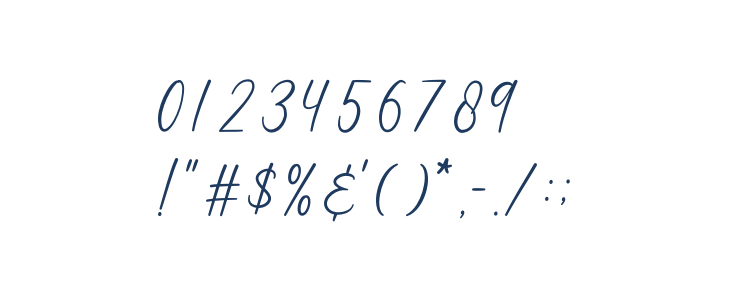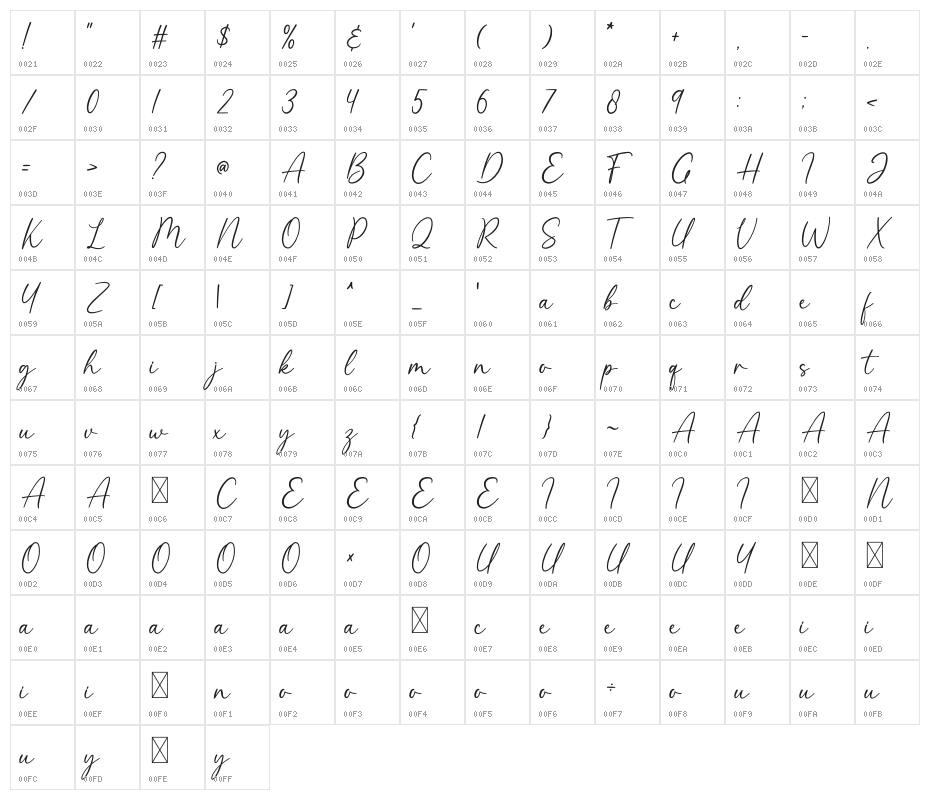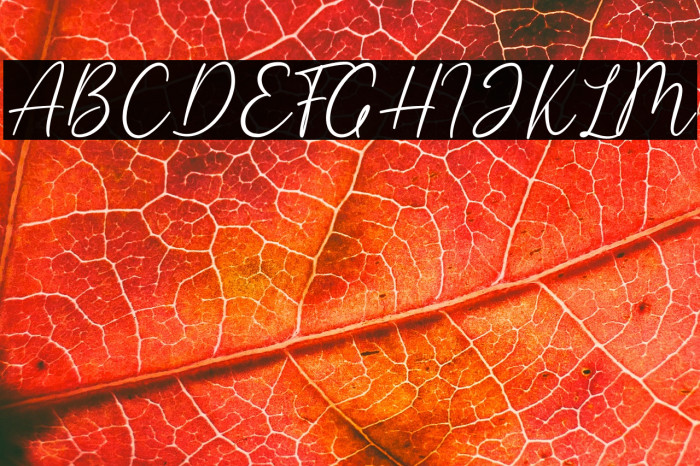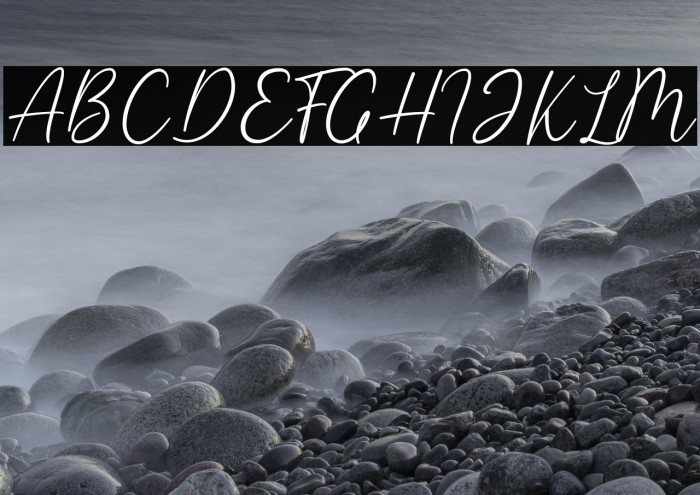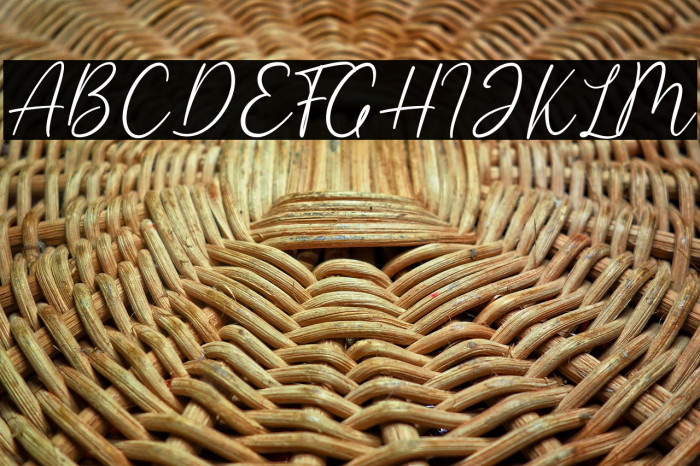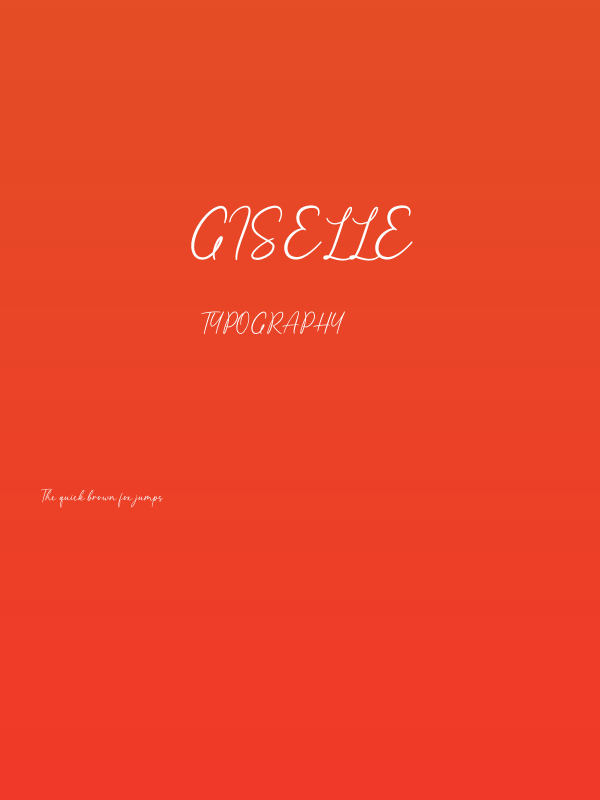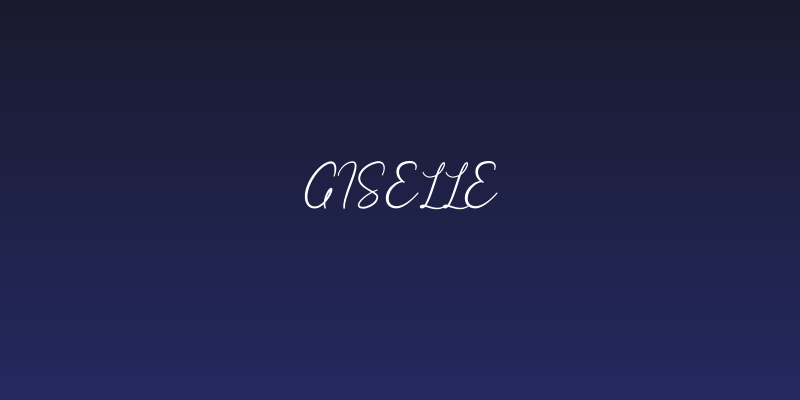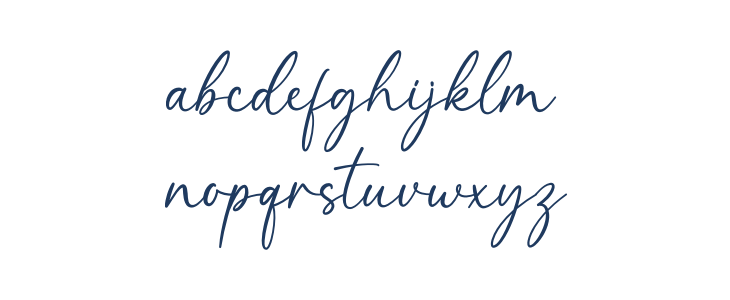
Giselle Font
Giselle Description
This font features a flowing, cursive style with elegant, sweeping lines that give it a handwritten appearance. The uppercase letters are tall and slender, with a slight slant to the right, adding a sense of movement and grace. The lowercase letters maintain a consistent flow, connecting smoothly with each other, enhancing the script's natural look. Numbers and special characters are designed to match the overall aesthetic, ensuring a cohesive appearance across all characters. The strokes are consistent in width, providing a harmonious and balanced look. This font exudes a sense of sophistication and elegance, making it ideal for projects that require a personal touch.
| Overall Style | Elegant, Handwritten |